REQUIRED TYPEFACES
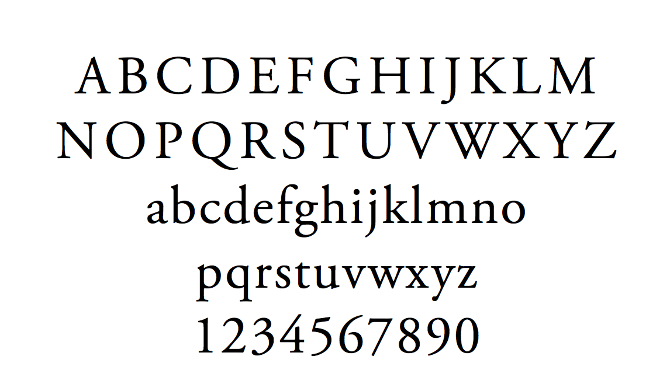
In this class you may only use the following typefaces (don't worry there are over 40 typefaces listed below). The reason for this restriction is threefold: 1. to avoid novelty typefaces at all costs. 2. to gain an understanding of typographic history 3. To realize that its up to you to make them work.
Old Style
(renaissance 15th and 16th centuries)
Garamond (1617) (v)
Caslon (1722)
Bembo (1495)
Janson (1690)
Palatino (1950)
Sabon (1964)
Centaur (1916)
Transitional
(baroque 17th century) (neo classical 18th century)
Baskerville (1757)
Times Roman (1931) (v)
Scotch (1810)
Electra (1935)
Bookman
Modern
(romantic 18th and 19th century)
Bodoni (1780) (v)
Didot (1784)
Walbaum (1800)
Egyptian/Slab
Century Schoolbook (1890) (v)
Clarendon (1845)
Cheltenham (1896)
Lubalin Graph (1974)
Melior
Sans Serif
(realist 19th and 20th centuries)(Geometric Modernist 20th century)
Helvetica (1957) (v)
Univers (1957)
Gill Sans (1928)
Futura (1927) (v)
Avant Garde (1967)
Optima
Bell Centennial (1978)
News Gothic (1908)
Folio
Franklin Gothic
Adzidenz Grotesk
Frutiger
Trade Gothic
Digital Typefaces
(Postmodern/Vernacular)
Interstate, Tobias Frere Jones, 1993-95 (Font Bureau)
Knockout, Tobias Frere Jones (Font Bureau)
Gotham, Tobias Frere Jones and Jesse Ragan, 2000-01 (HFJ)
Meta, Erik Spiekermann, 1984-991 (Font Shop)
(Classical/Historical Revival)
HTF Didot, Jonathan Hoefler, 1991 (Hoefler Type Foundry)
Galliard, Matthew Carter, 1978
Big Caslon, Matthew Carter, 1994
Mantinia, Matthew Carter, 1993
(Electronic Communications)
Retina, Tobias Frere Jones and Jonathan Hoefler, 2000
Mercury, Tobias Frere Jones and Jonathan Hoefler, 1999
Lo-Res, Zuzana Licko 1985 (Émigré)
Miller, Matthew Carter, 1997 (The Guardian)
FF DIN, Albert-Jan Pool, 1995 (Font Shop)
(v) - Massimo Vignelli list of “the only typefaces you need”